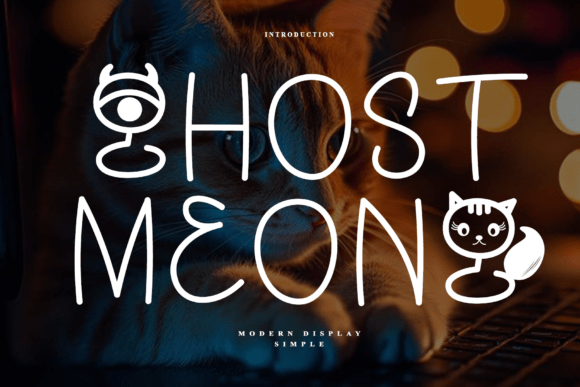
Discover the Purrfect Typographic Companion
Have you ever stared at a blank canvas, searching for the perfect font to bring your creative vision to life? As a designer, you know the struggle of finding that elusive typographic magic that elevates your work from ordinary to extraordinary. For those who love animals, especially our feline friends, the search is over. Introducing Ghost Meong Font, a whimsical and charming modern display font that’s sure to capture the hearts of designers and pet lovers alike.
This delightful font seamlessly integrates feline-inspired elements into its design, making it a valuable addition to any designer’s toolkit. Whether you’re working on pet-themed branding, playful children’s book titles, or creative social media content, Ghost Meong Font’s unique features will add a touch of whimsy and personality to your work.
Ghost Meong Font Key Features
- Font Family: Ghost Meong Font is a sans-serif typeface, designed to be modern and sleek.
- Font Size: The font comes in multiple weights, ranging from 100 to 900, with each weight available in a range of font sizes.
- Resolution: Designed for high-resolution displays, the font is optimized for use at resolutions of 300 DPI and above.
- Unique Characteristics: The font features a unique, hand-drawn feel, with subtle irregularities and imperfections that give it a human touch.
- Language Support: Ghost Meong Font supports a wide range of languages, including Latin, Cyrillic, and Greek alphabets.
Ghost Meong Font Review
Overall, I found the Ghost Meong font to be a unique and intriguing addition to any design project. Here are a few things that stand out:
- ✨ Elegant and refined design: The Ghost Meong font has a sophisticated and elegant feel to it, making it perfect for high-end branding and marketing materials.
- ✨ Versatile: The font is highly versatile and can be used in a variety of settings, from titles and headings to body text.
- ✨ Beautiful pairing options: Ghost Meong pairs well with a wide range of fonts, making it easy to create visually appealing combinations.
However, I did encounter a few limitations:
- ⚠️ Limited language support: Ghost Meong is a Latin-based font, which may limit its use in non-English speaking countries or for languages that require complex scripts.
- ⚠️ May require adjustments for readability: Due to its elegant and refined design, Ghost Meong may require adjustments to be made to achieve optimal readability, especially for body text.
Overall, I would say that the Ghost Meong font is a great addition to any designer’s toolkit, offering a unique and sophisticated look that’s perfect for high-end branding and marketing materials. With a little creativity and adjustments, it can be a powerful tool in any designer’s arsenal.
Tips for Getting the Most Out of Ghost Meong Font
To get the most out of Ghost Meong Font, consider the following tips:
- Use the font in combination with bold and italic styles to add emphasis
- Experiment with different font sizes and colors to create visual interest
- Use the font for headings and titles to create a cohesive look